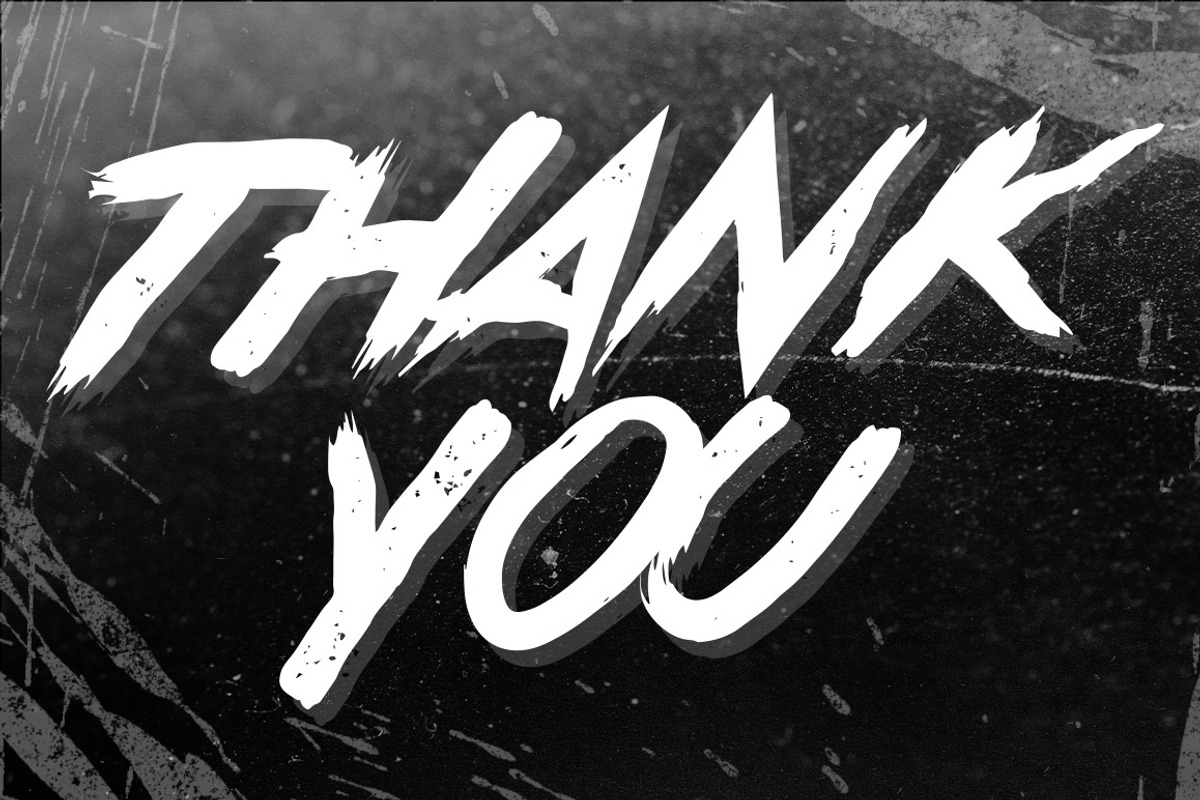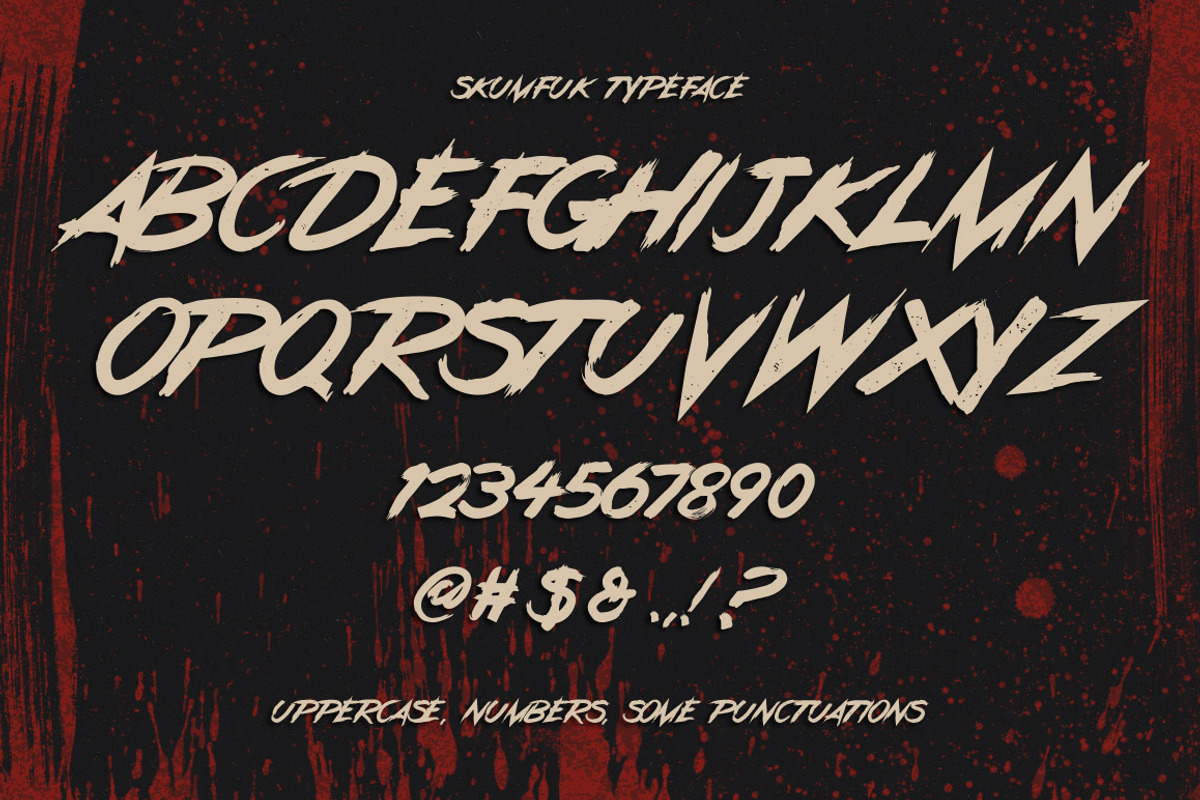
Skumfuk Typeface
Skumfuk Typeface by Ian Irwanwismoyo is a font selected for branding, posters, packaging, typography.
- Skumfuk Typeface Inspired by the rebel youngsters soul that rejected by the most of people, but the truth is they have some potential but pe
Why Skumfuk Typeface is worth a look
Skumfuk Typeface by Ian Irwanwismoyo fits naturally into Branding, posters, packaging, typography.